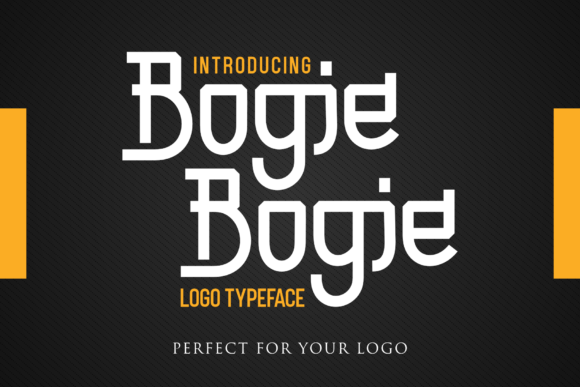
Welcome to the whimsical world of Bogie Bogie, a display font that emanates cool sophistication like a trendy art gallery. With its unique letterforms and playful personality, Bogie Bogie stands out from the crowd, demanding attention like a magnetic force. Whether it's a food menu, poster, flyer, or any creative project, Bogie Bogie transforms ordinary designs into captivating masterpieces.
As a designer, you'll find endless possibilities with Bogie Bogie. Its inherent charm adds a touch of whimsy and delight, making it ideal for designs that demand a splash of personality. Picture your designs taking center stage, commanding attention like a captivating work of art. Bogie Bogie empowers you to make a bold statement, ensuring your designs leave a lasting impression that lingers in the minds of your audience.
Don't let mundane fonts hold your creativity captive. Unleash the boundless potential of Bogie Bogie and witness the transformation of your designs into extraordinary works of art. Step into a realm where fonts ignite emotions and captivate imaginations - Bogie Bogie is your gateway to a world of endless creative possibilities. Seize the opportunity to elevate your designs and leave an indelible mark on the world.